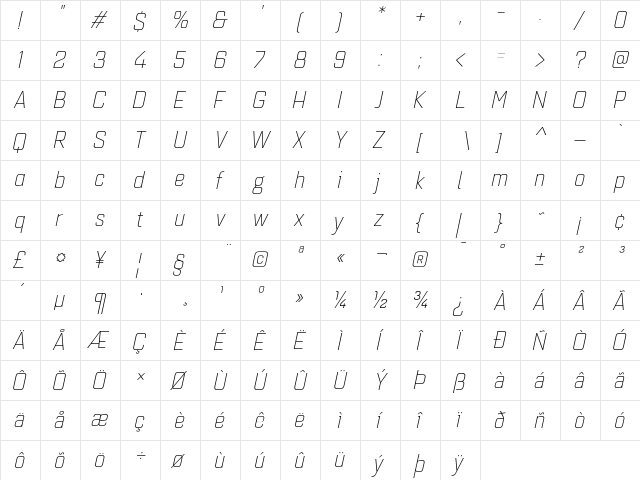
Quarca Norm Light Italic
Design Context for Quarca Typeface
Quarca offers clean, dependable letterforms without strong stylistic allegiance, making it a practical choice for designers who need flexibility. The slanted form adds forward momentum and visual energy. Its slender proportions lend an understated elegance to any composition.
Pro Tip: Try Quarca for annotation and caption copy alongside an upright companion — the contrast in angle creates a dynamic but ordered typographic system.